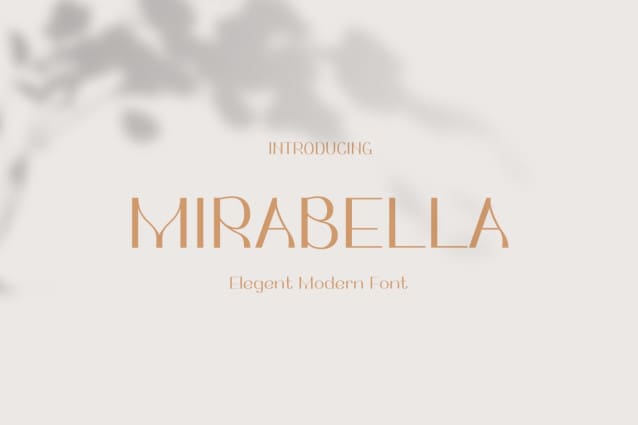
Mirabella Display Font
Mirabella Display Font –  is more than just a handwriting font, it’s a personality. It dances across invitations with playful swashes, adds a touch of elegance to logos, and makes quotes sing with its charming imperfections. Whether you’re crafting a blog post or designing a wedding invitation, Mirabella’s versatility shines through.
Embrace the fun! Experiment with uppercase and lowercase combinations, discover hidden ligatures, and let your creativity flow. Mirabella is the perfect companion for adding a personal touch to any project.